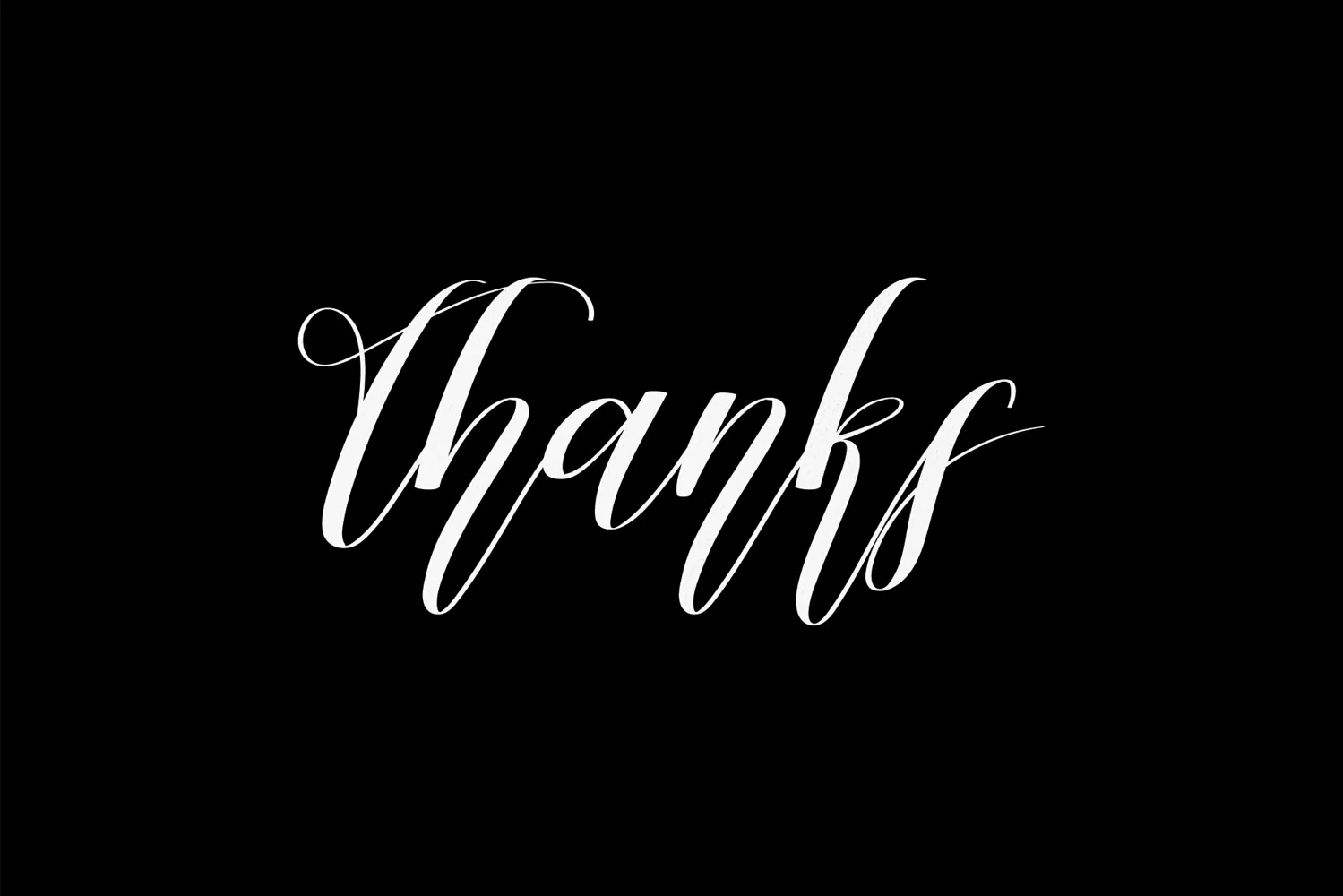
Margaretta | Script font
Margaretta Font is a popular and professional script font. It is Modern and elegant, this typeface is made of beautiful, creative strokes.